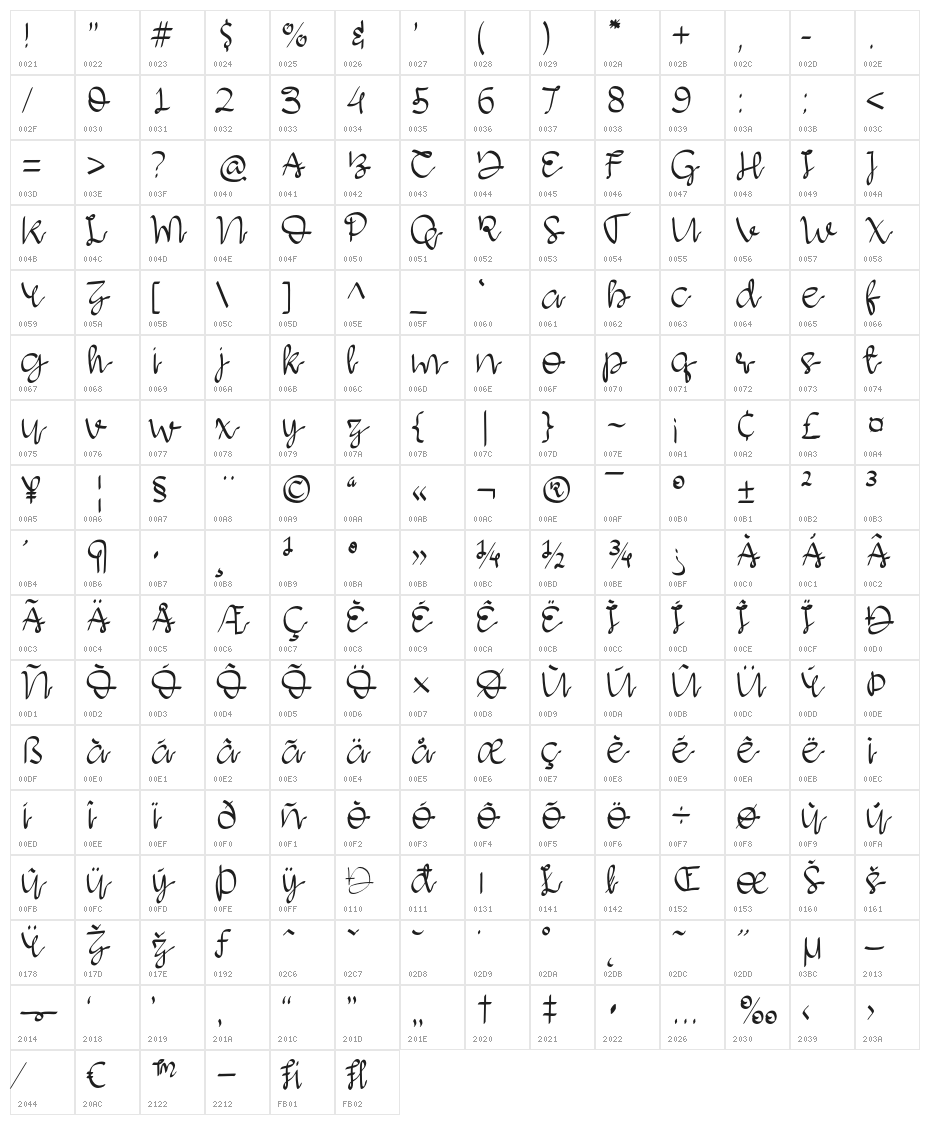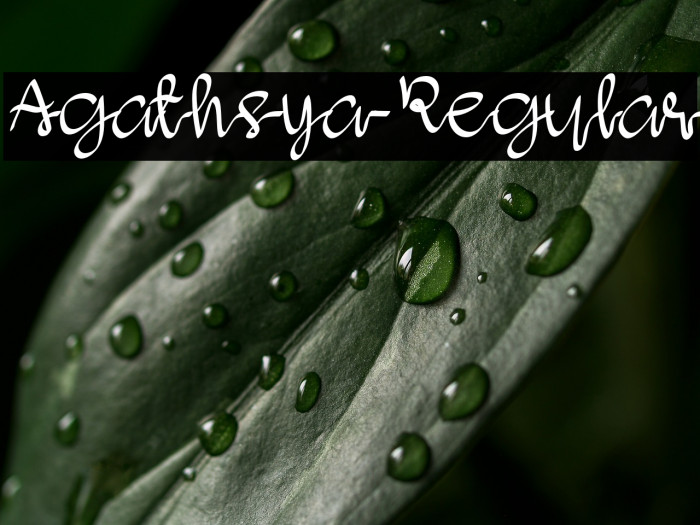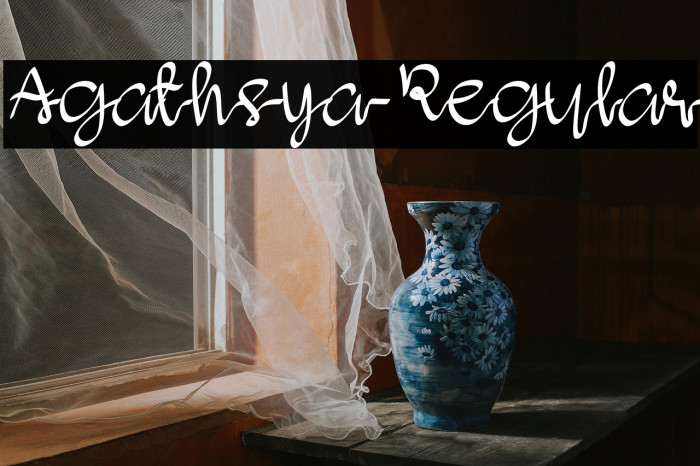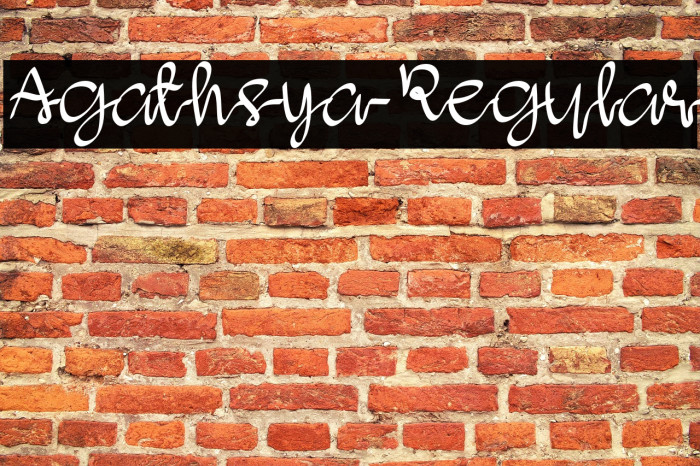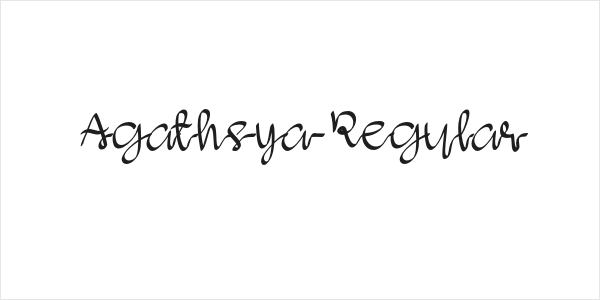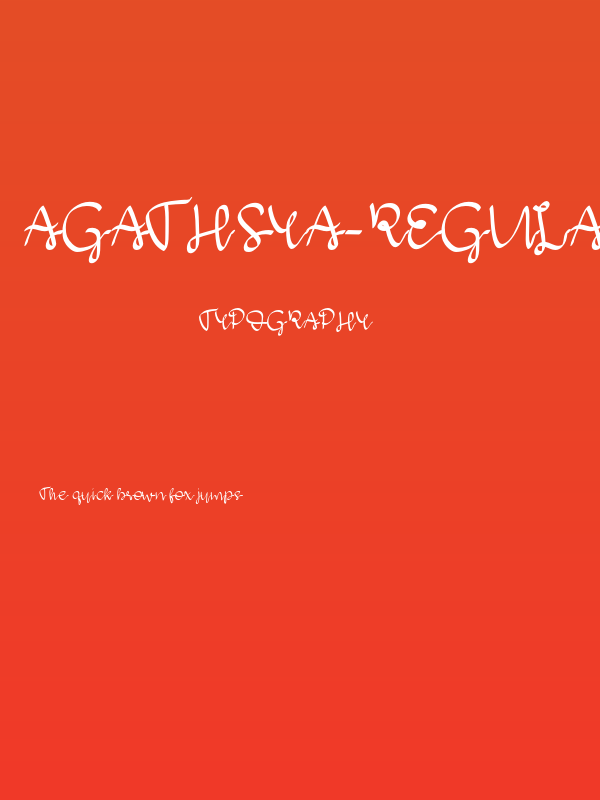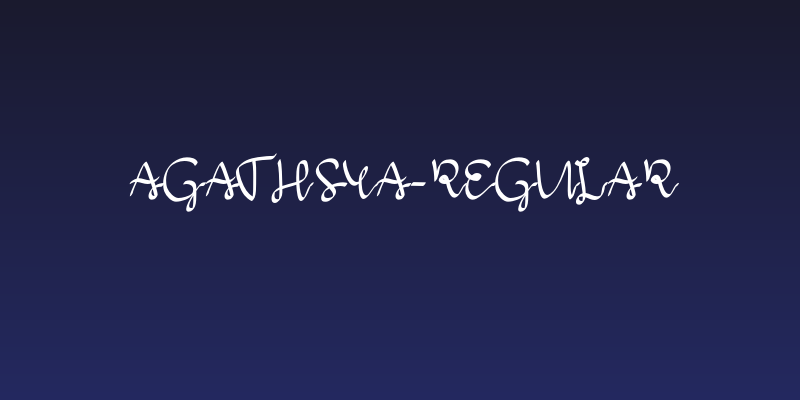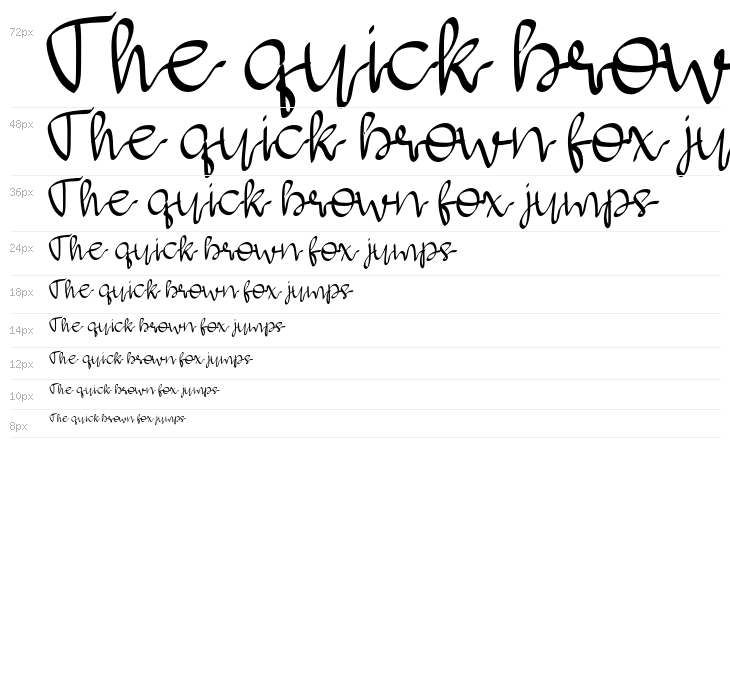
Agathsya-Regular Font
Agathsya-Regular Description
This font features a dynamic and flowing script style, characterized by its elegant and fluid letterforms. The uppercase letters exhibit a graceful and slightly whimsical appearance, with strokes that vary in thickness, adding a sense of movement and liveliness. The lowercase letters maintain a cohesive and harmonious look, complementing the uppercase with their smooth curves and loops. Numbers and special characters are designed to match the overall aesthetic, ensuring consistency across all glyphs. The font's playful yet sophisticated style makes it suitable for a variety of creative applications.